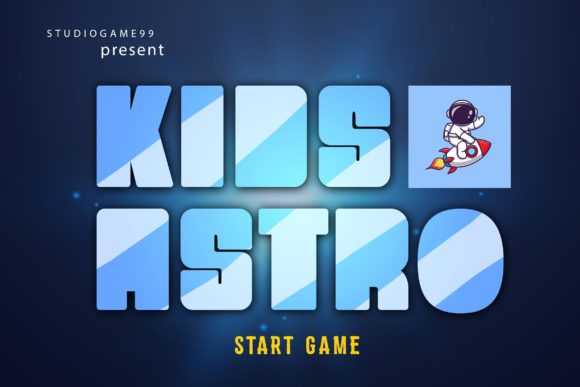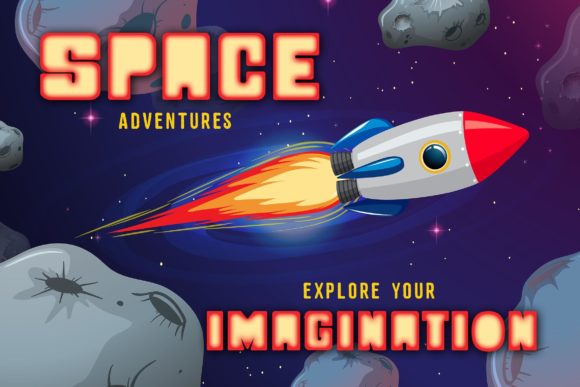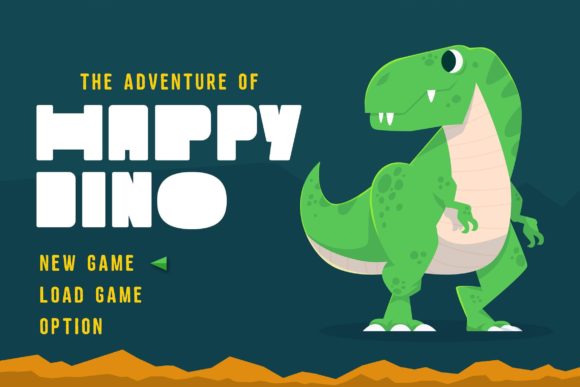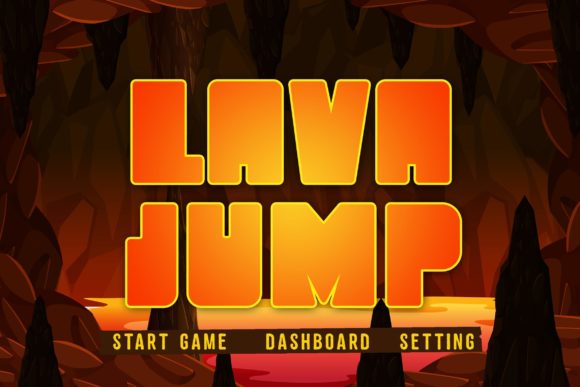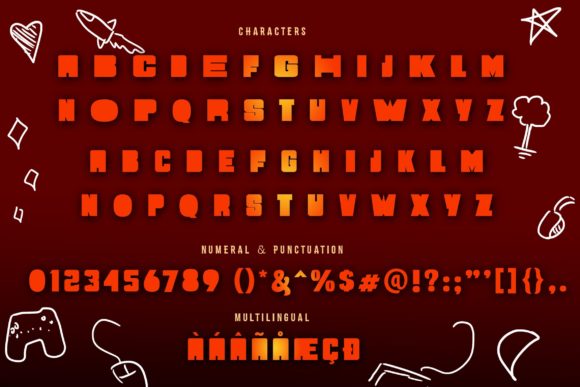
Introducing Black Block Font: The Ultimate Display Font for Bold Creations
Are you tired of using the same old fonts for your designs? Do you want to add a touch of industrial chic to your creations? Look no further than Black Block Font, a cool, bold, and thick lettered display font that’s sure to make your designs stand out.
What is Black Block Font?
Black Block Font is a modern, sans-serif font that’s designed to make a statement. Its bold, blocky letters are reminiscent of robotic typography, giving it a unique and eye-catching look. This font is perfect for designers and crafters who want to add a touch of edginess to their creations.
Key Features of Black Block Font
- Bold and Thick Letters: Black Block Font features bold, thick letters that are sure to grab attention.
- Robotic Look: The font’s blocky, industrial design gives it a robotic look that’s perfect for creating futuristic designs.
- Display Font: Black Block Font is designed specifically for display use, making it perfect for headlines, titles, and other large-format text.
- Easy to Read: Despite its bold design, Black Block Font is easy to read, even at smaller sizes.
Uses for Black Block Font
Black Block Font is a versatile font that can be used for a wide range of design projects, including:
- Logos and Branding: Use Black Block Font to create bold, eye-catching logos and branding materials.
- Posters and Flyers: Add a touch of industrial chic to your posters and flyers with Black Block Font.
- Social Media Graphics: Use Black Block Font to create bold, attention-grabbing social media graphics.
- Signs and Banners: Black Block Font is perfect for creating signs and banners that need to stand out.
Tips for Using Black Block Font
Here are a few tips for getting the most out of Black Block Font:
- Use it Sparingly: Black Block Font is a bold font, so use it sparingly to avoid overwhelming your design.
- Pair it with Other Fonts: Pair Black Block Font with other fonts to create visual interest and add depth to your design.
- Experiment with Colors: Black Block Font looks great in a variety of colors, so experiment with different colors to find the one that works best for your design.
| Font Name | Black Block Font |
| Author | fontherapy |
Black Block Font is a cool, bold, and thick lettered display font that’s perfect for designers and crafters who want to add a touch of industrial chic to their creations. With its robotic look and easy-to-read design, Black Block Font is sure to make your designs stand out. So why wait? Download Black Block Font today and start creating bold, eye-catching designs that demand attention.